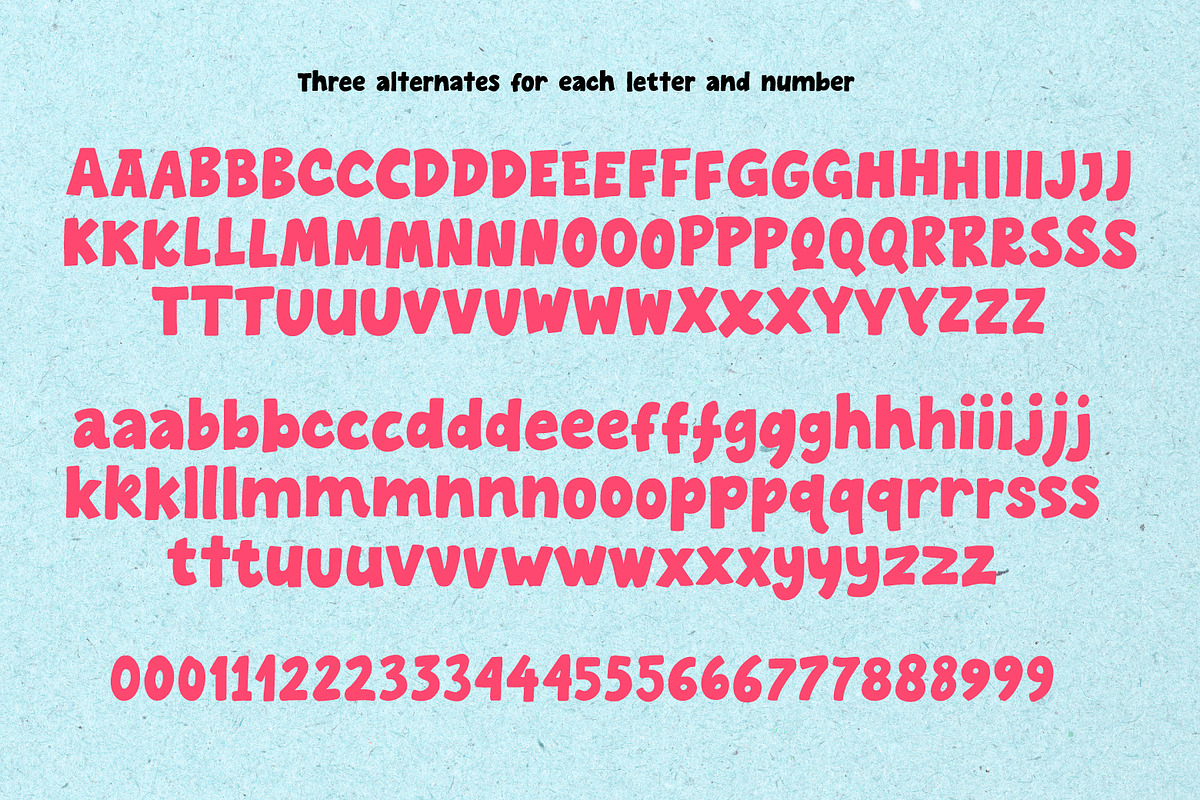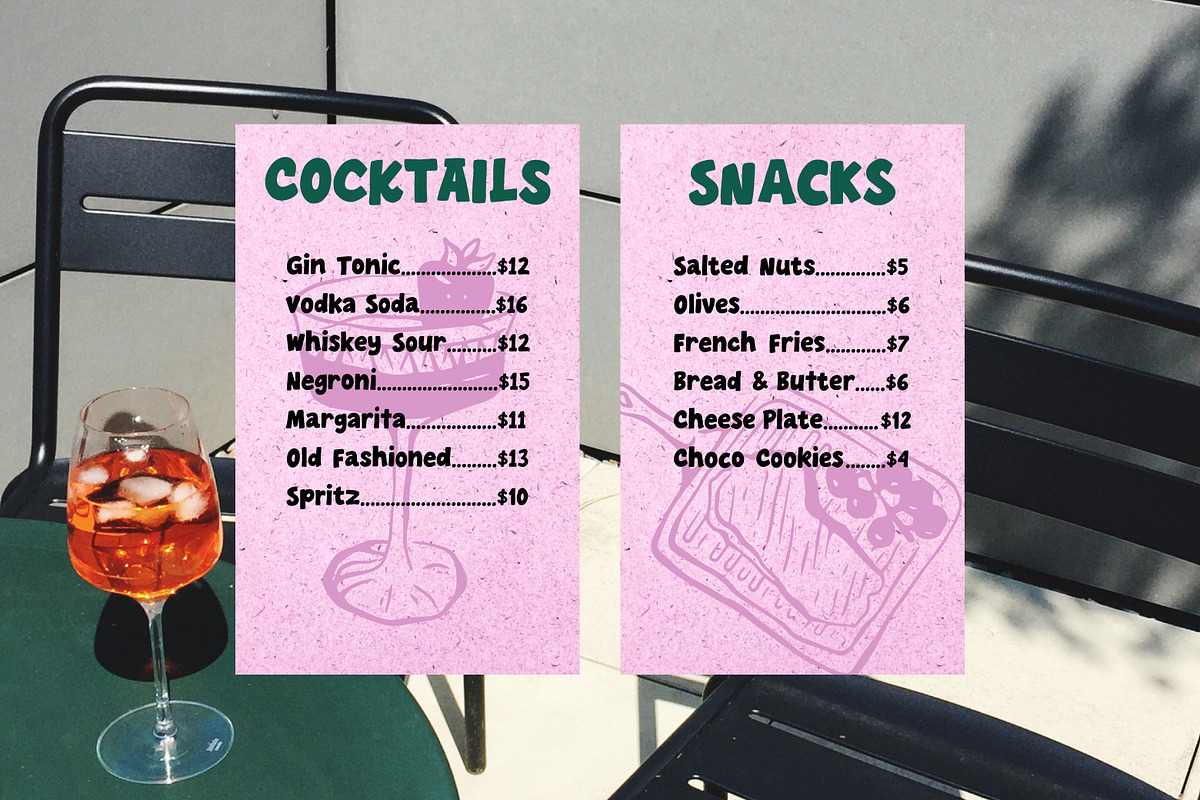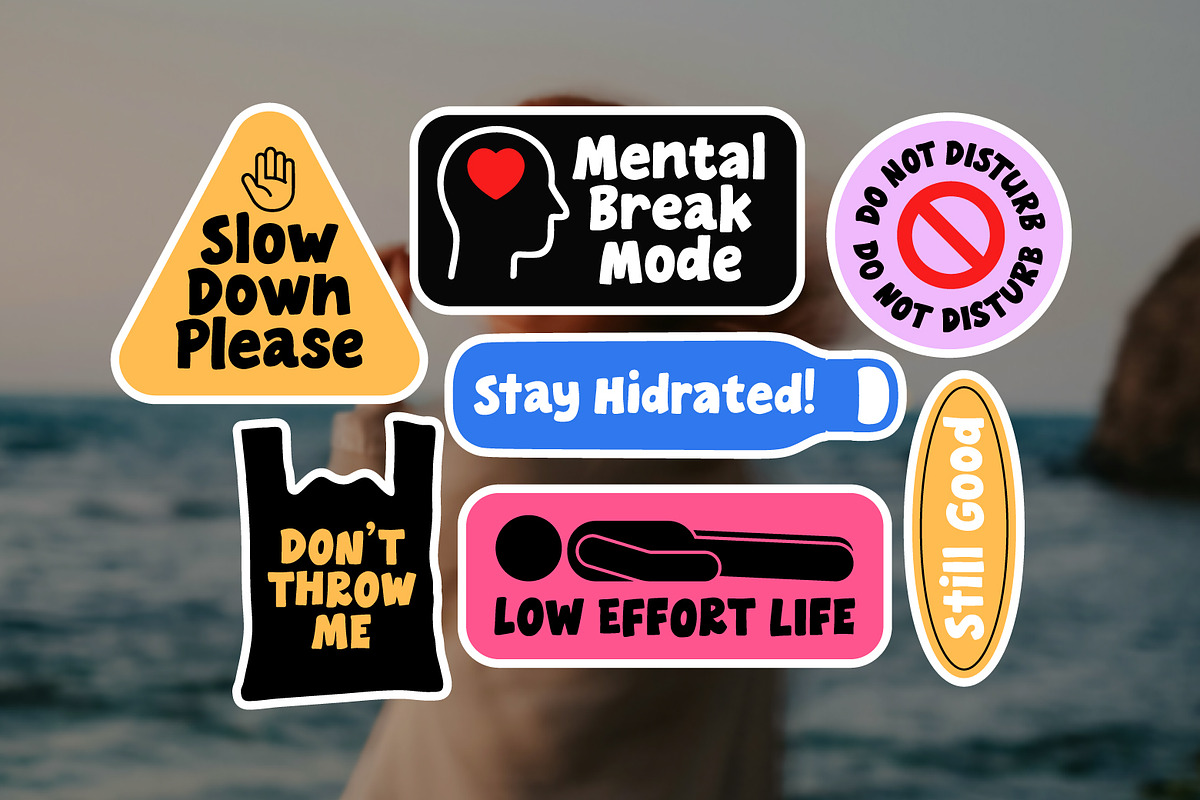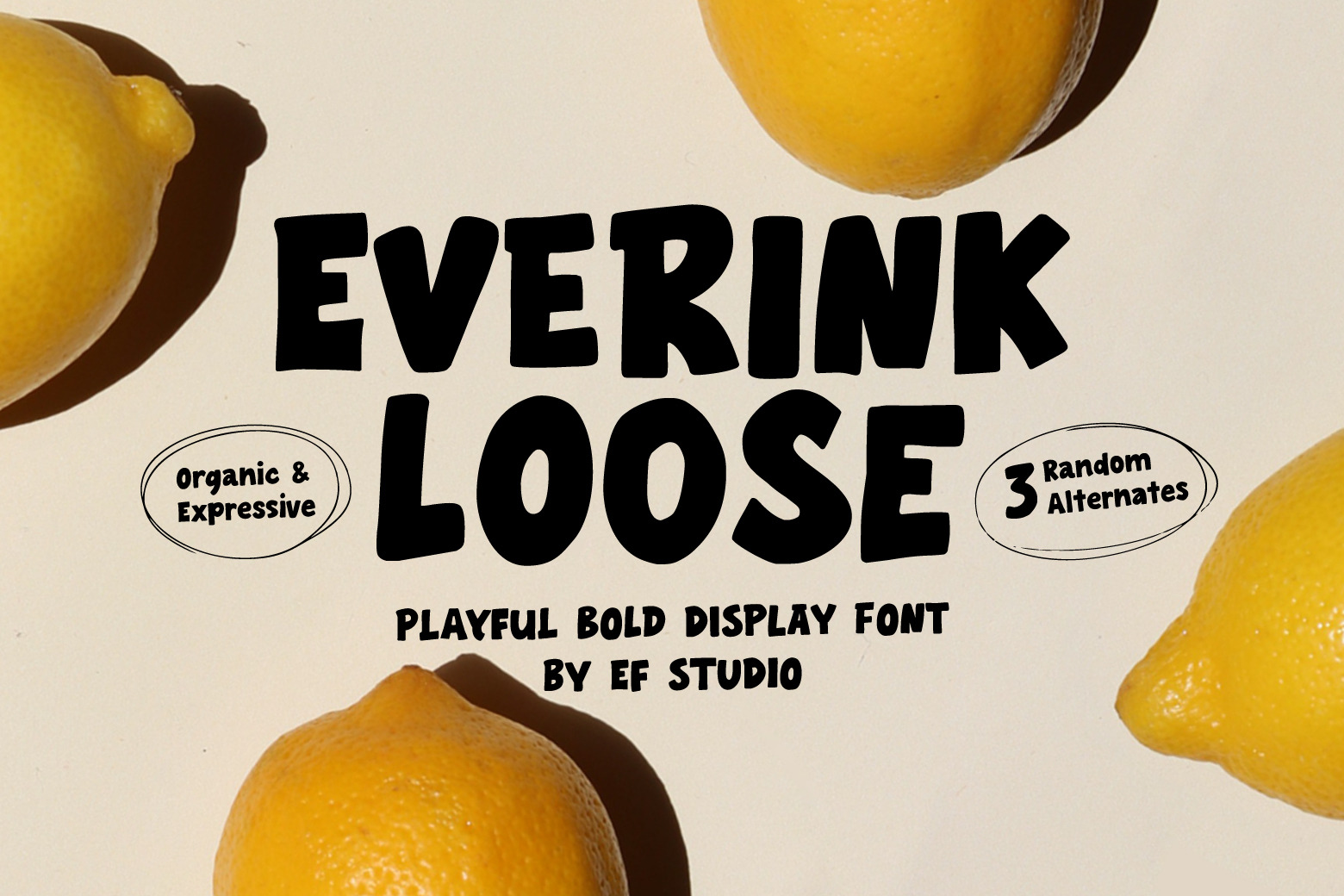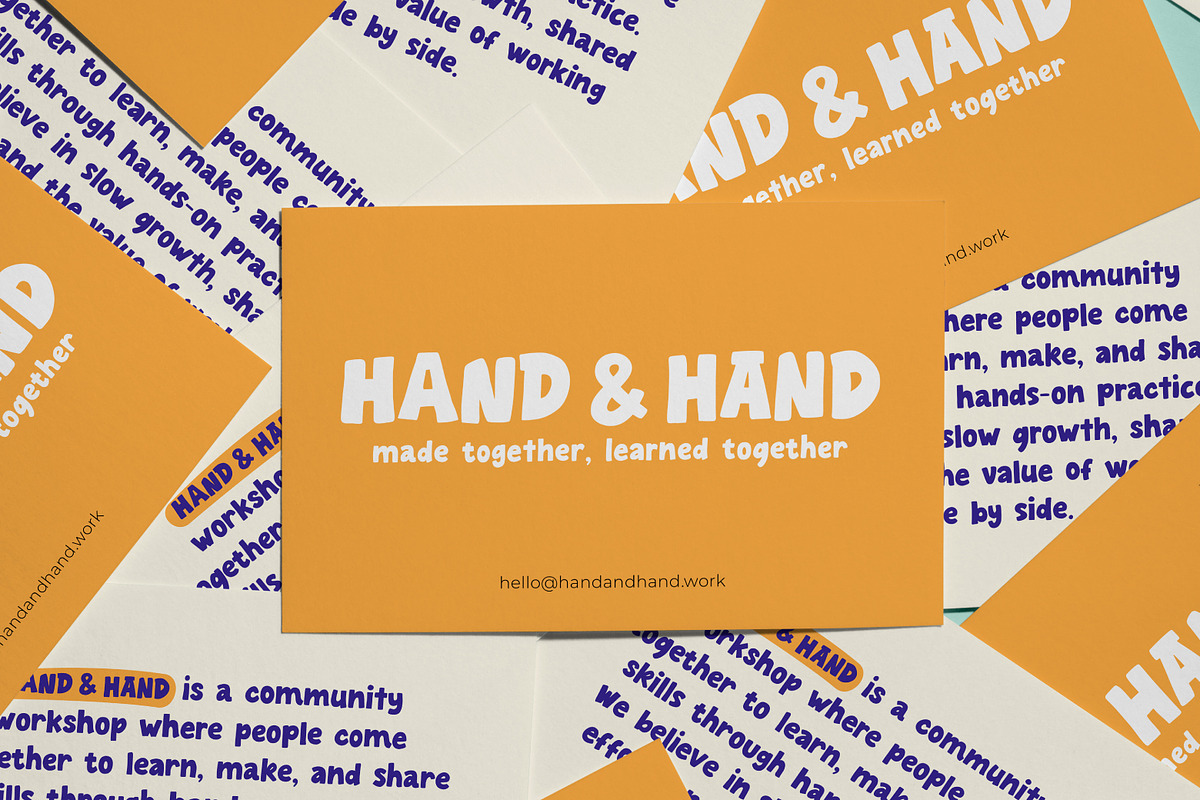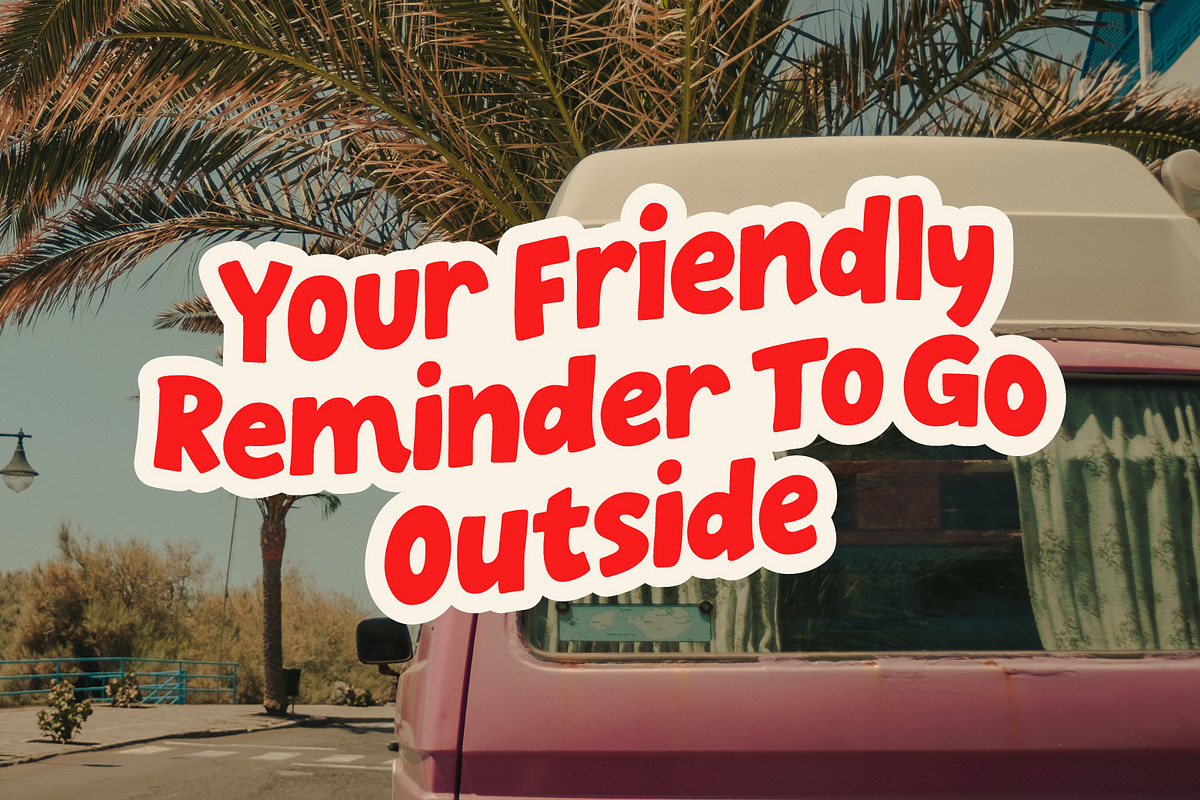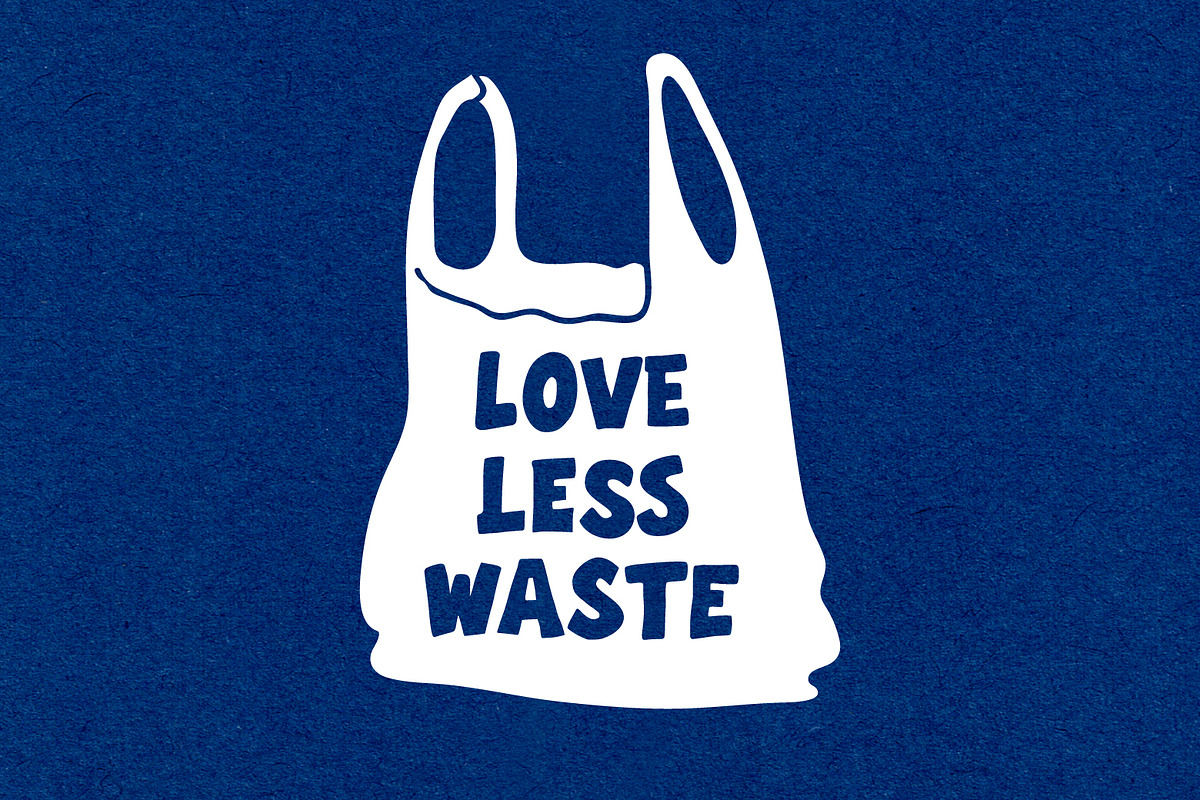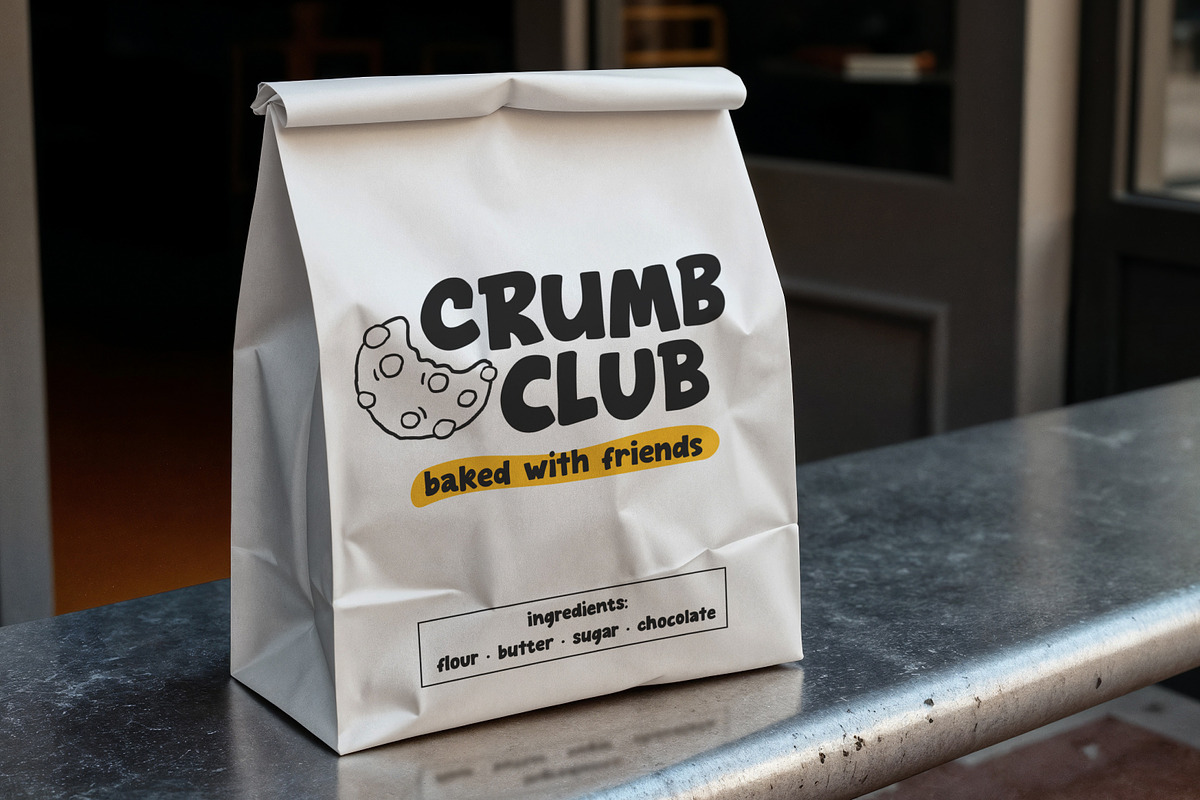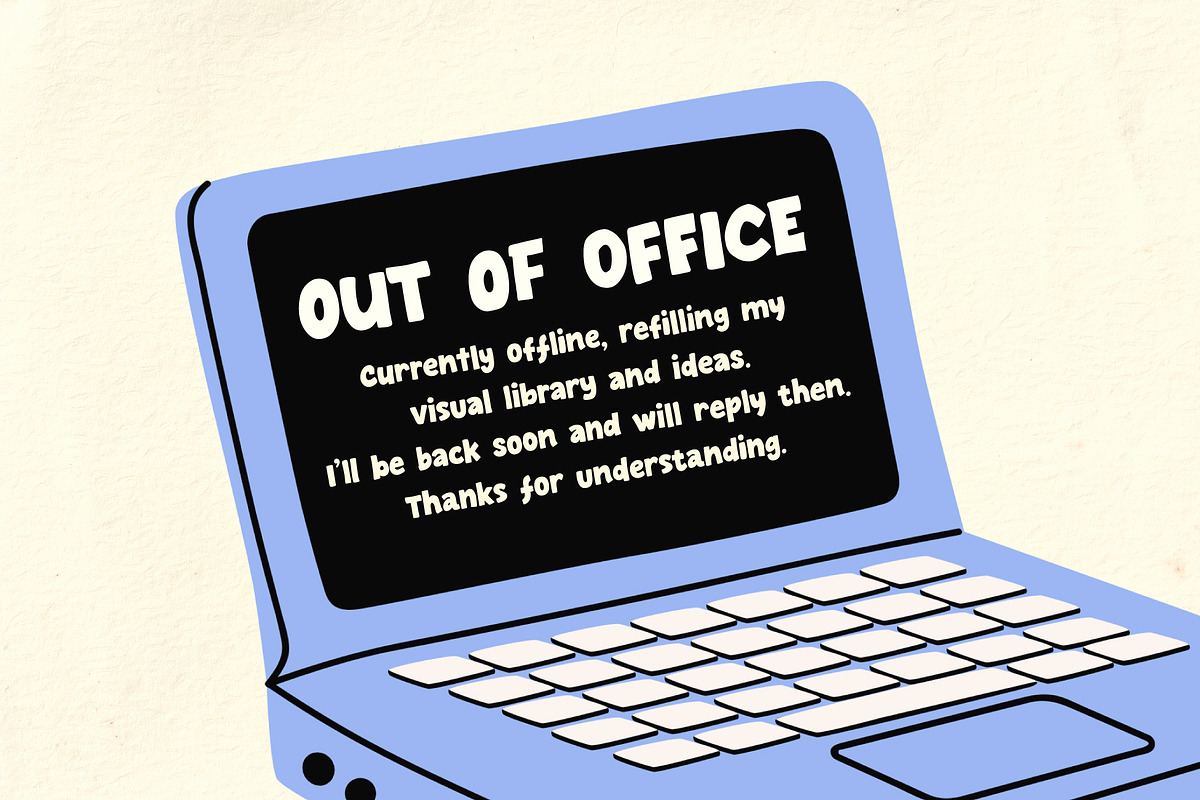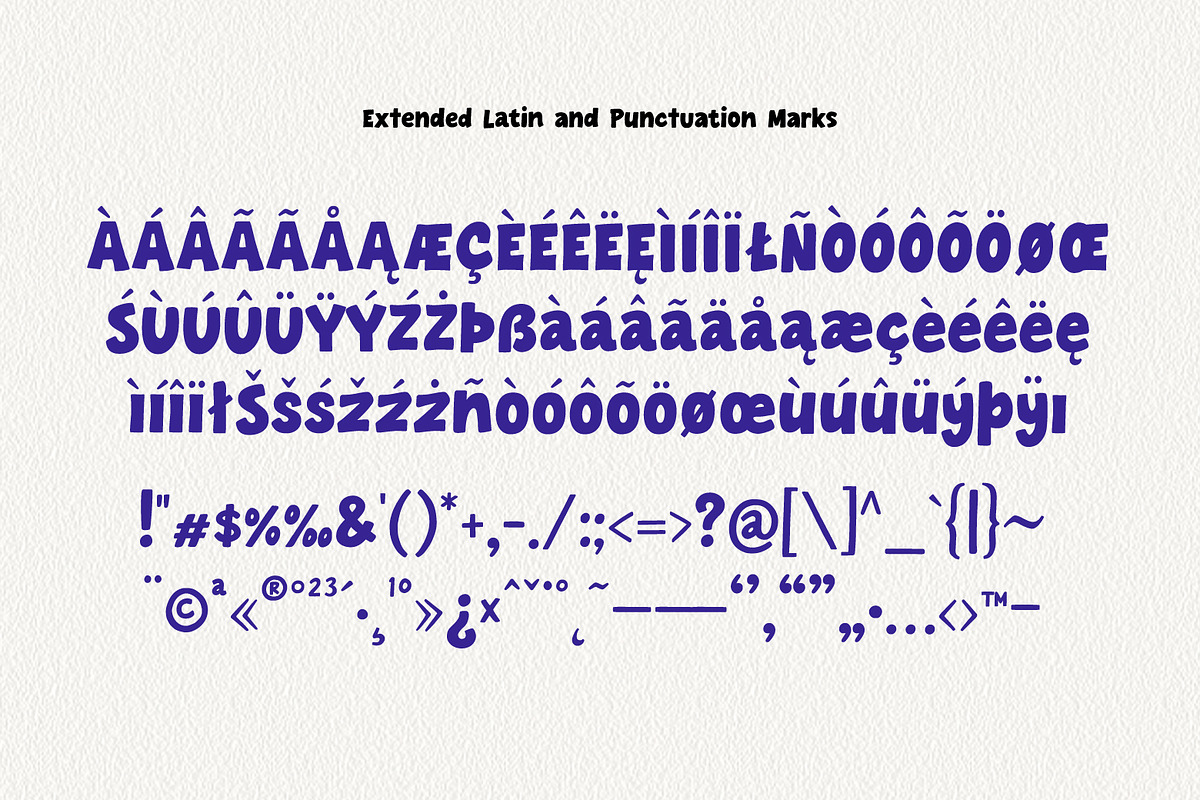
Everink Loose - Playful Bold Font
Everink Loose is a bold display type designed to feel alive as you type. Each letter and number comes with three alternates that rotate automatically through contextual alternates. No manual switching, no careful setup.
Even in short words, subtle variation already appears. In longer text, the rhythm becomes more visible: repeated letters shift naturally, shapes echo without repeating exactly, and the text stays expressive without feeling busy.
Everink Loose works best when you let it flow. It’s made for posters, menus, packaging, social graphics, and any space where personality matters more than precision. Loose shapes, rounded energy, and confident weight give the font a human presence, imperfect in the right way.
Just type. The alternates follow.
- Three alternates per letter and number
- Automatic contextual alternates
- Uppercase, lowercase, numerals, extended latin, and punctuation marks included
Best for: Posters · Packaging · Menus · Editorial headlines · Social content · Branding with character